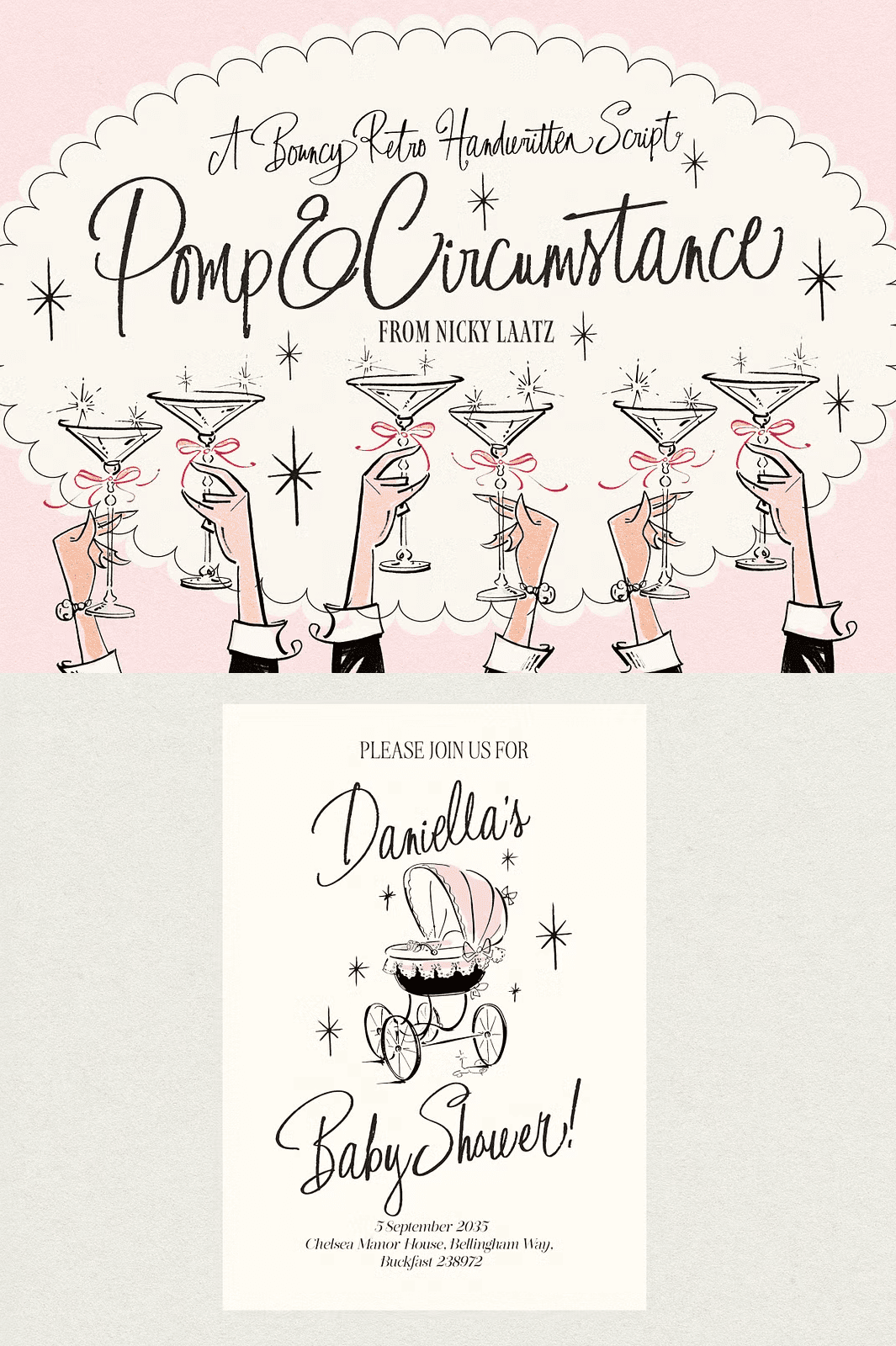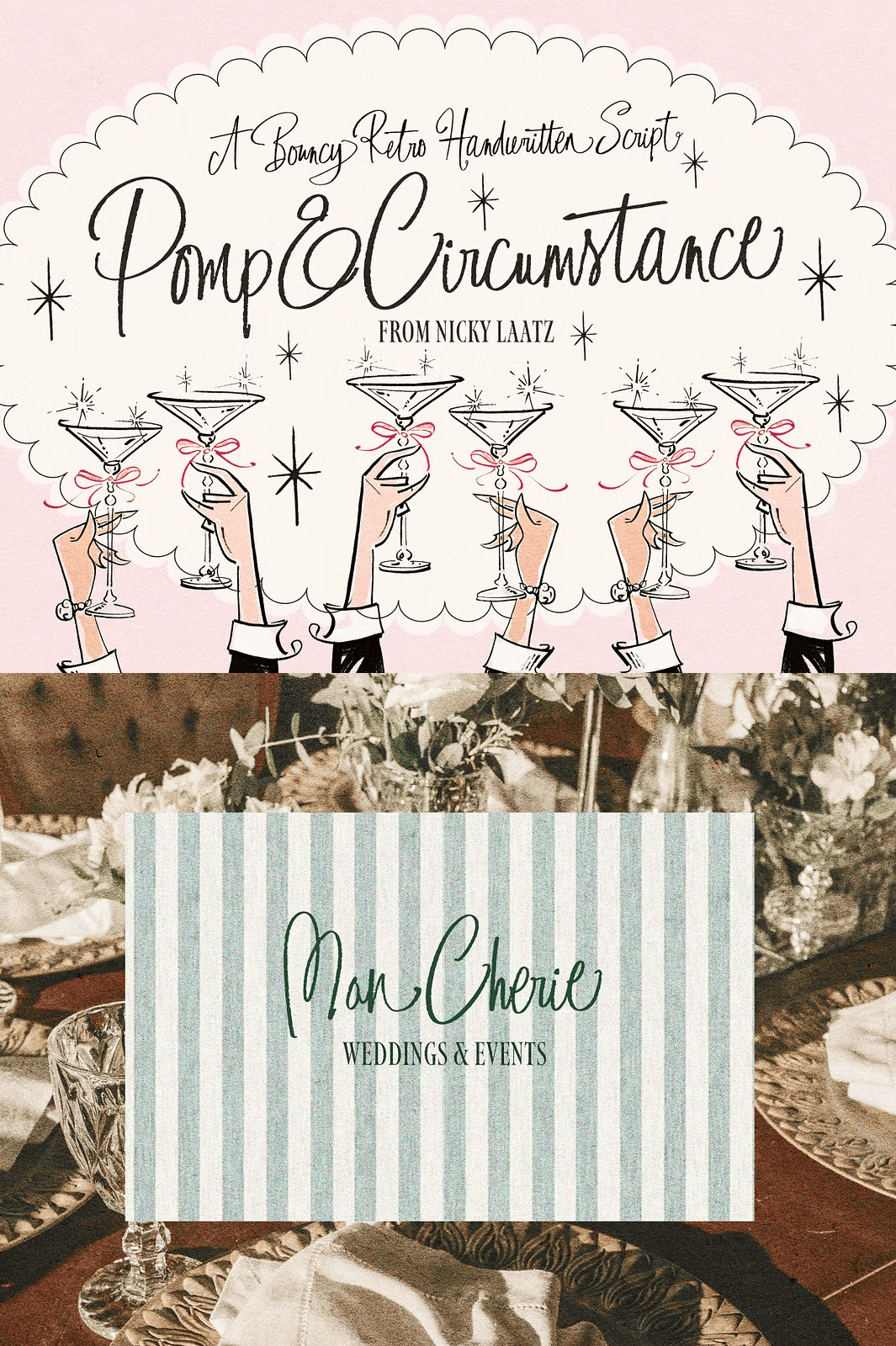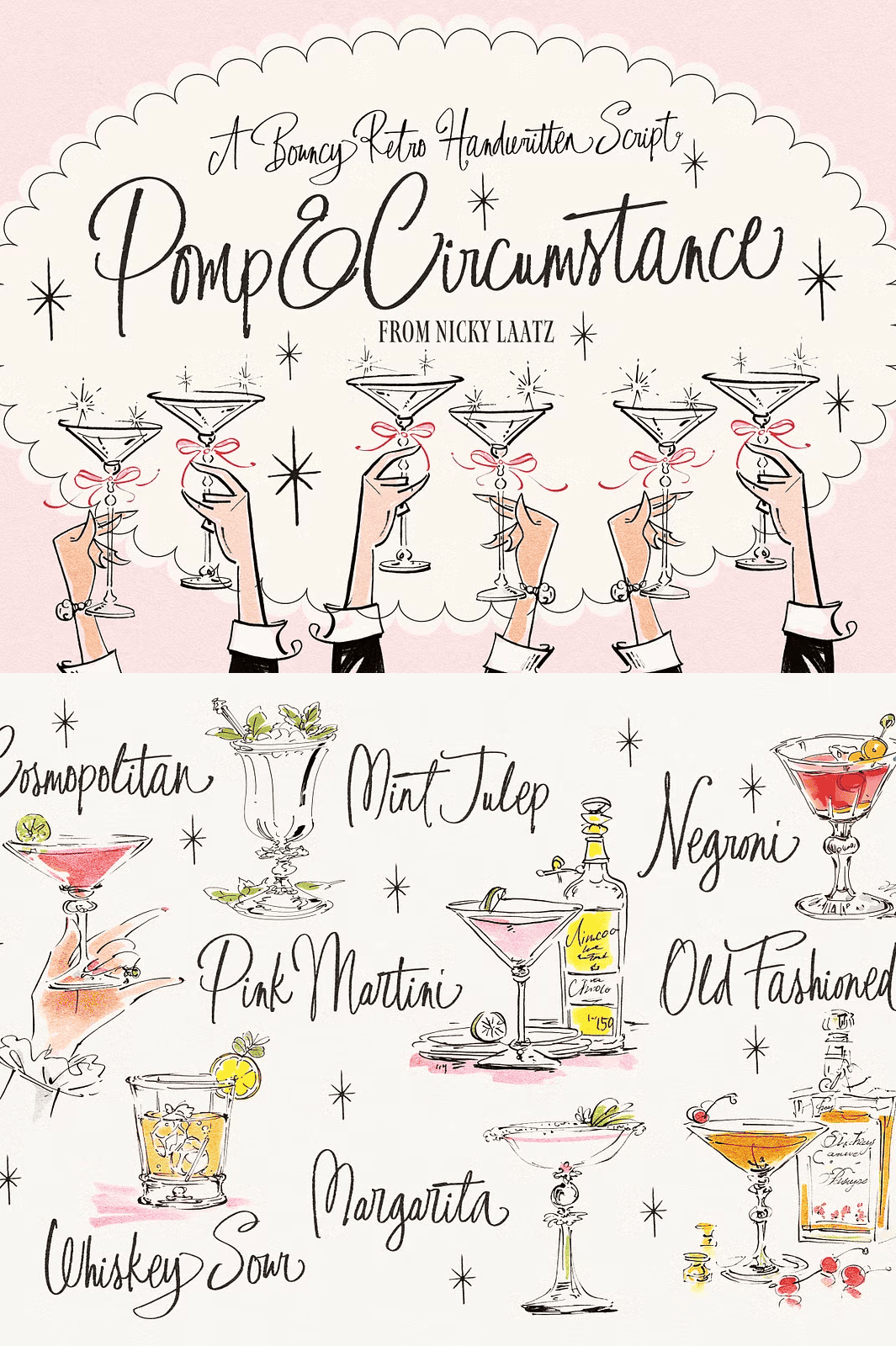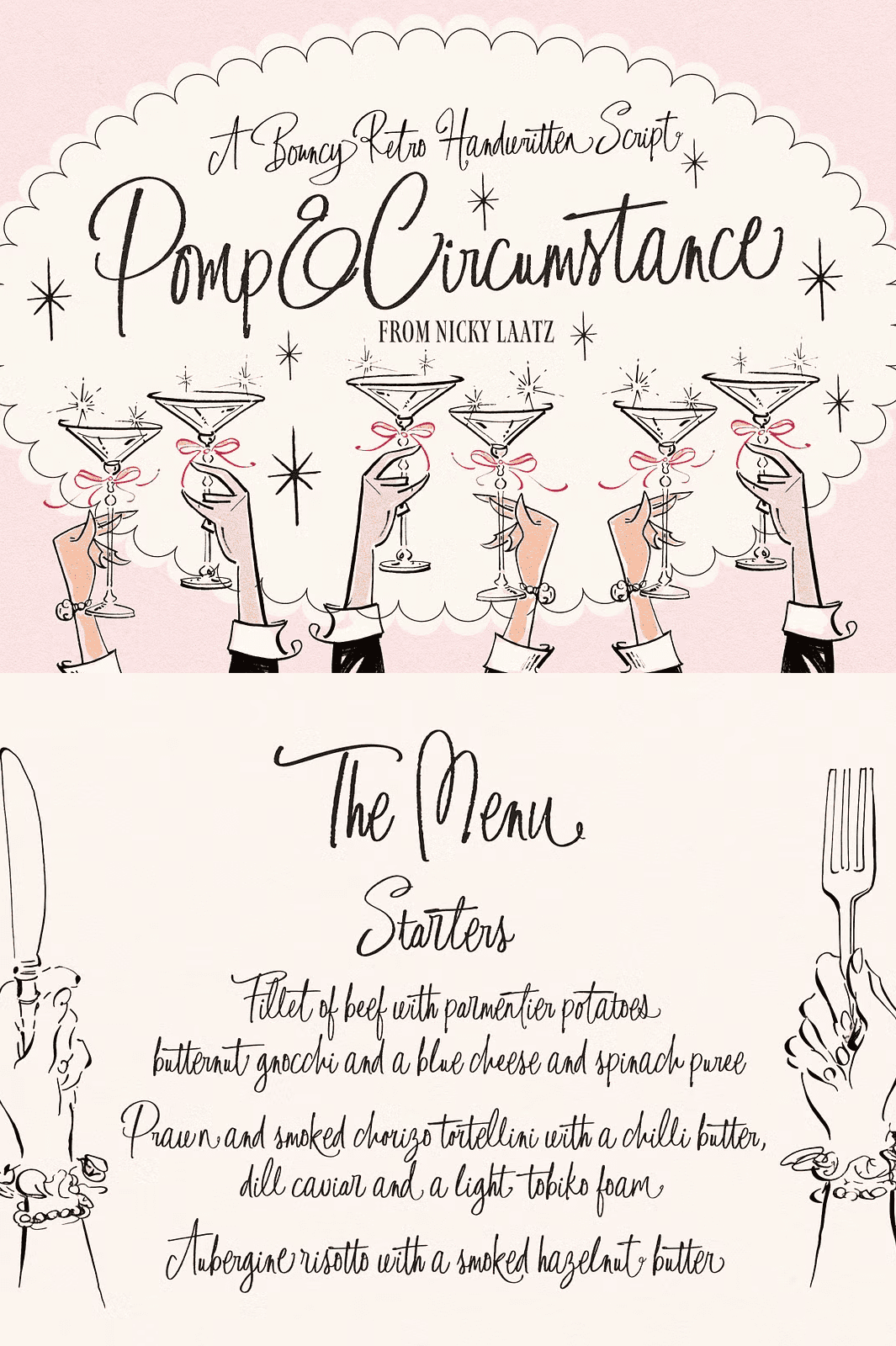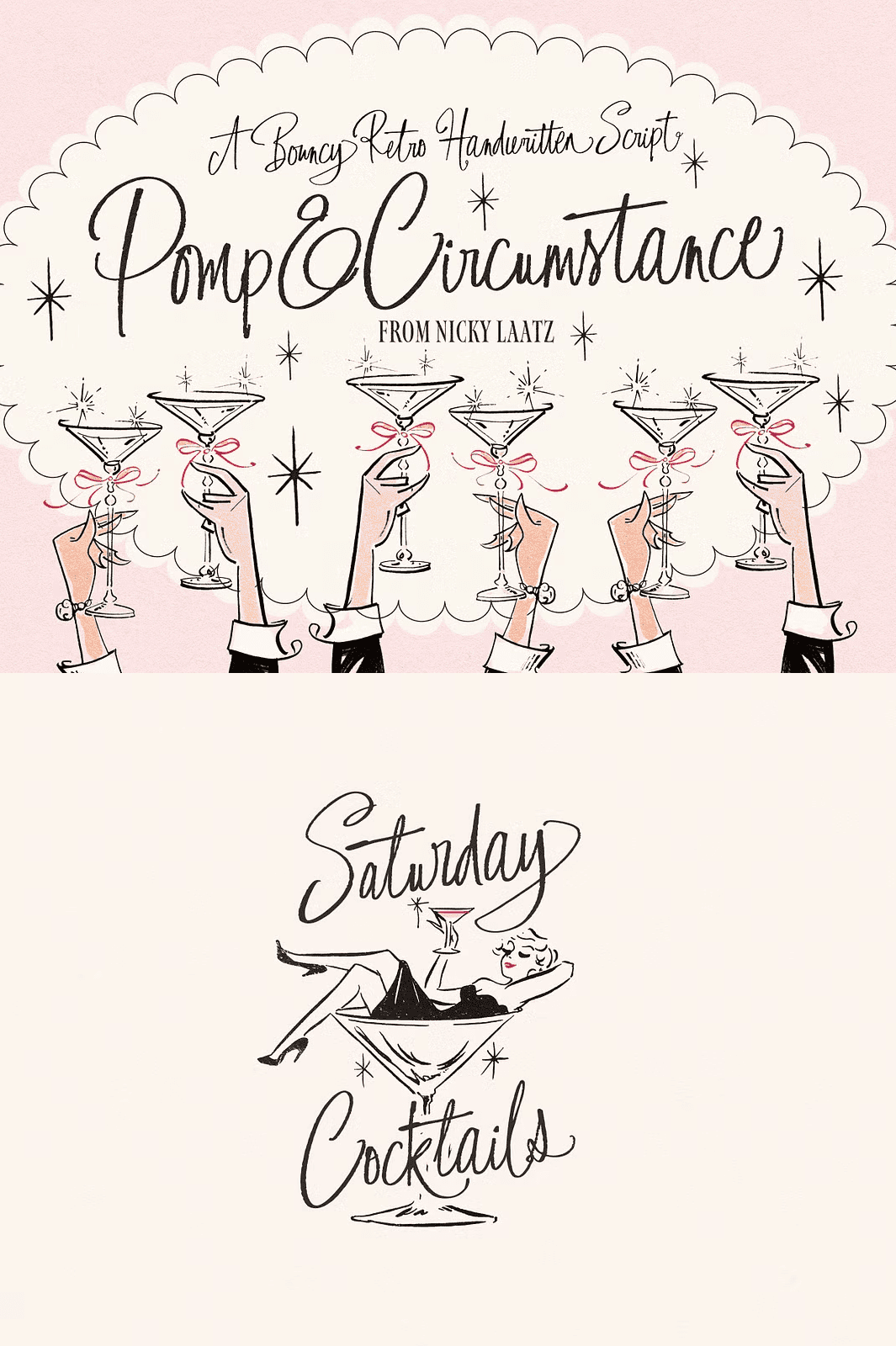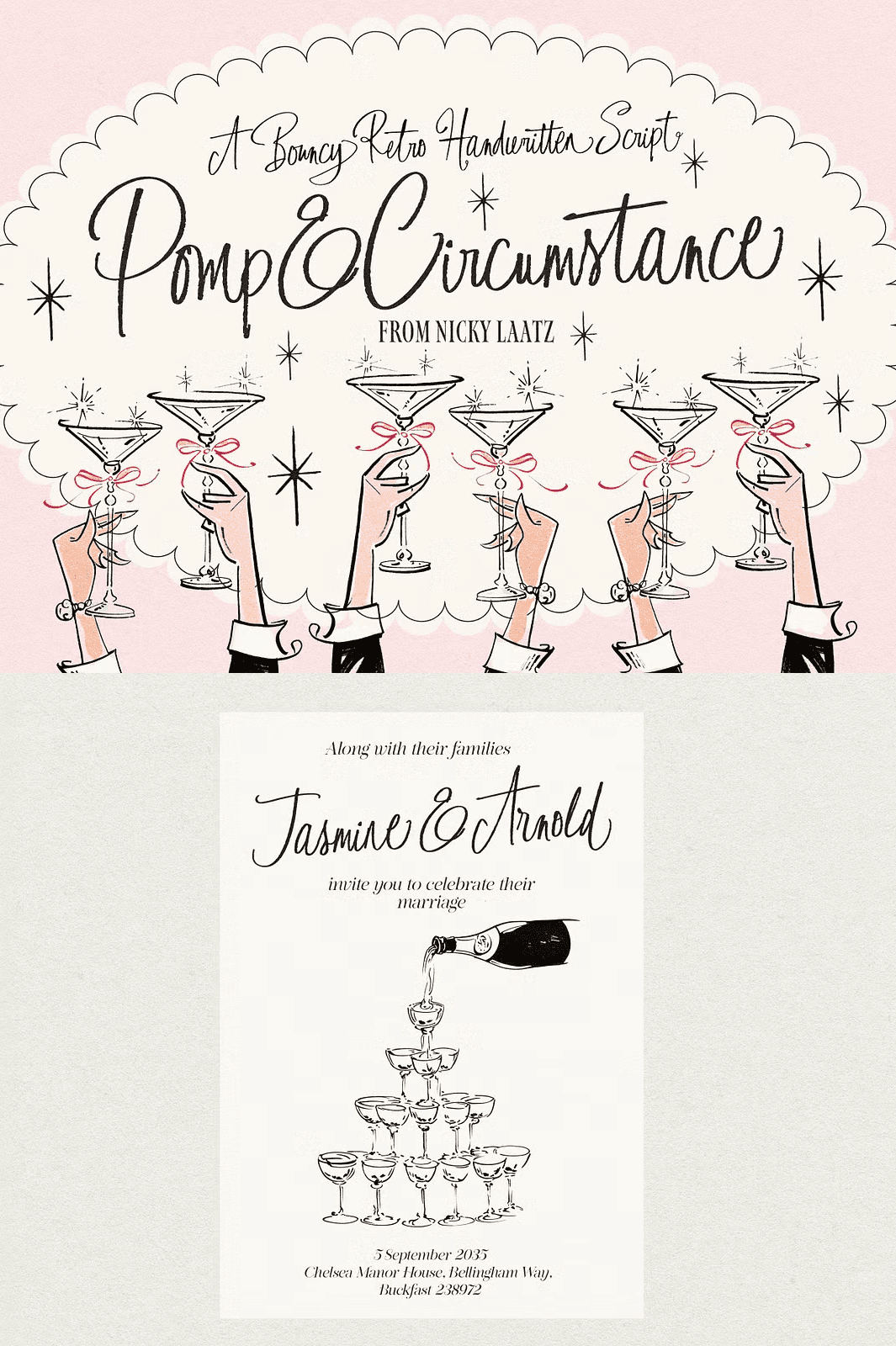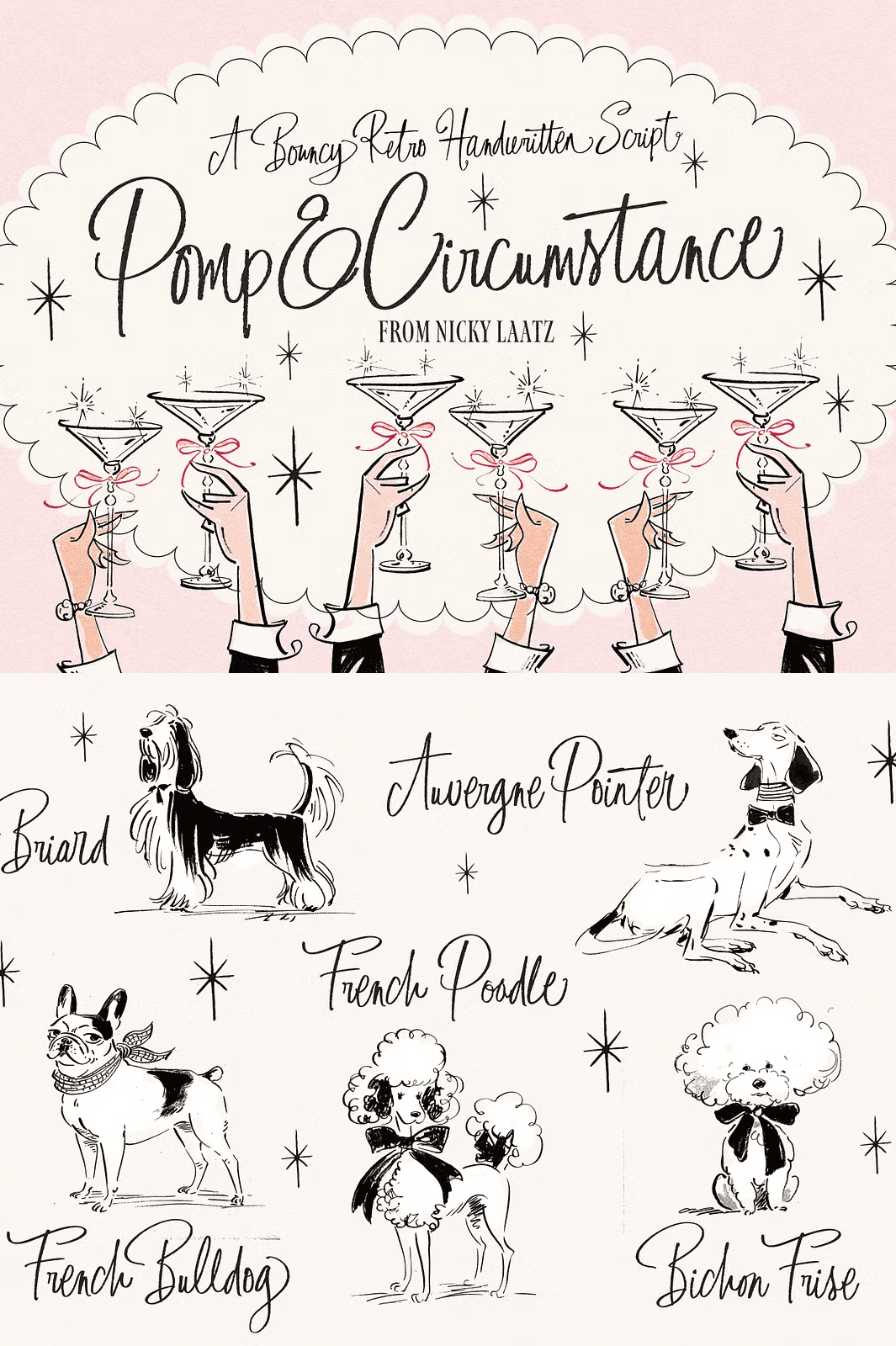
Pomp & Circumstance Script Font
Unleash the Energy of 1950s Style with a Modern Twist
Say hello to **Pomp & Circumstance** a vibrant, bouncy, and textured handwritten script that captures the spirited essence of 1950s design with bold personality and timeless flair. This retro-inspired font brings a light-hearted, playful energy to your creative projects, making it ideal for whimsical invitations, quirky wedding stationery, fun branding, and nostalgic retro artwork.
Whether you’re designing a vintage-themed party flyer, a nostalgic product label, or an expressive digital greeting card, Pomp & Circumstance delivers a unique visual voice that stands out from the crowd.
Rich OpenType Features Bring Your Typography to Life
Pomp & Circumstance is packed with advanced OpenType features, including **exclusive alternates, stylistic ligatures, and connected flourishes** all designed to elevate your text and give it dynamic movement and character. These features are fully accessible in professional design software such as:
Why Pomp & Circumstance is the Perfect Fit for Retro and Playful Projects
Bold retro personality: Built with the energy and texture of 1950s design.
Highly expressive: Dynamic alternates and ligatures make each word unique.
Ready for print and digital: Ideal for invitations, logos, packaging, T-shirts, and web graphics.